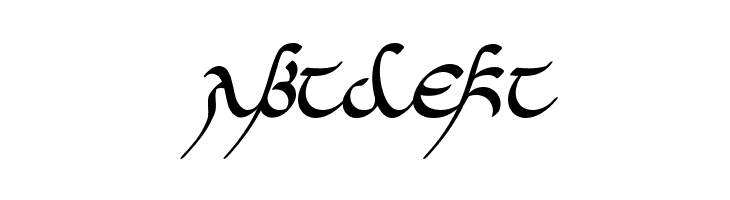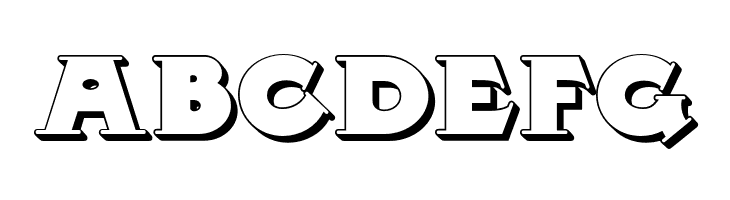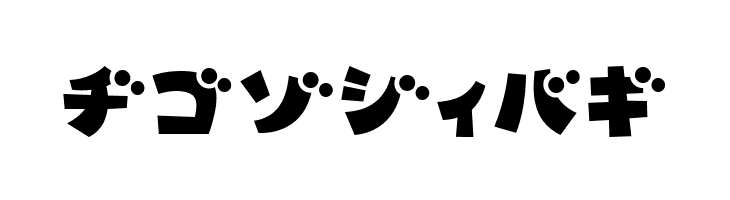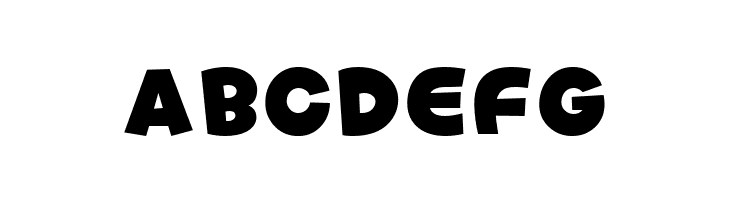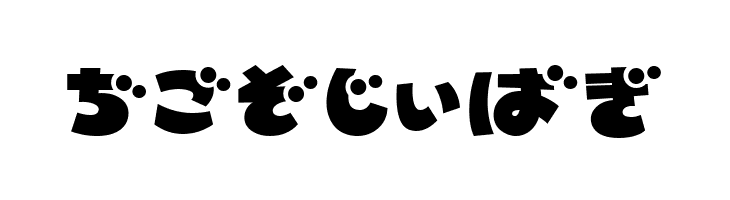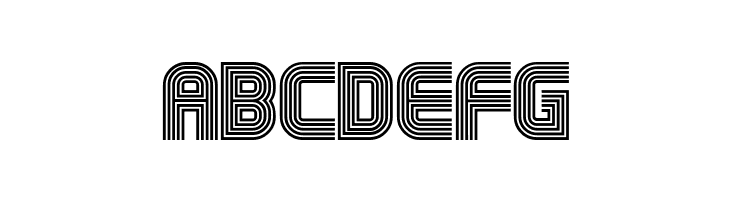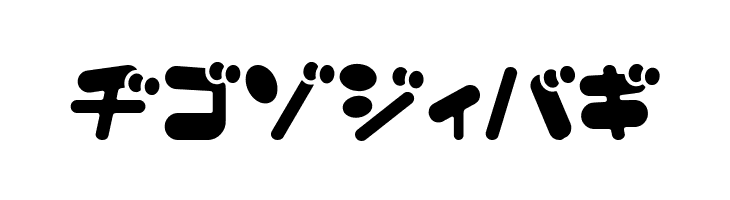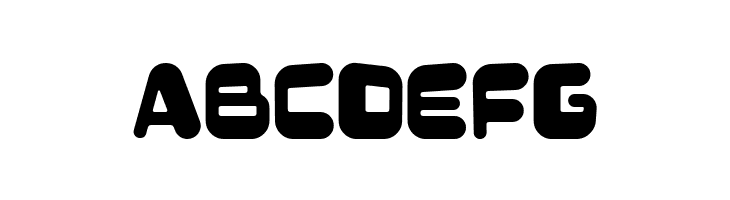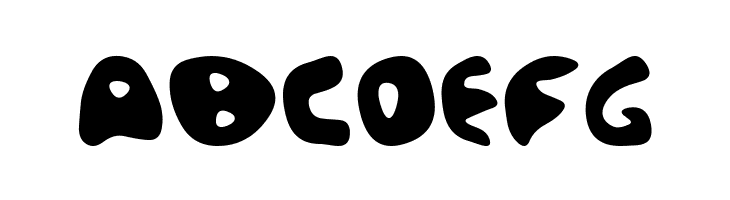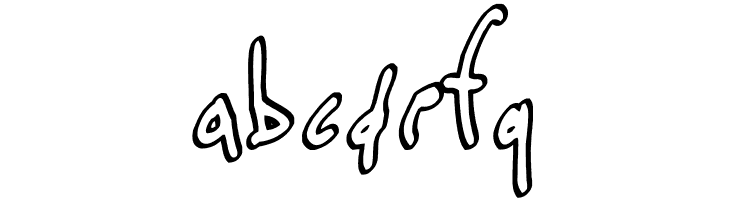
A playful, bold font with organic, melting shapes.
A bold, rounded font with a playful and modern style.
A bold, rounded font with a playful and modern aesthetic.
A playful, casual handwritten font with irregular, organic letterforms.
A calligraphic font with flowing, cursive strokes and a modern touch.
A bold, shadowed font with a vintage flair, perfect for standout headlines.
A bold, multi-line decorative font with a futuristic and geometric style.
A bold, playful font with rounded characters and a whimsical style.
A bold, rounded font with a playful and friendly style.
A bold, rounded font with a playful and modern style.